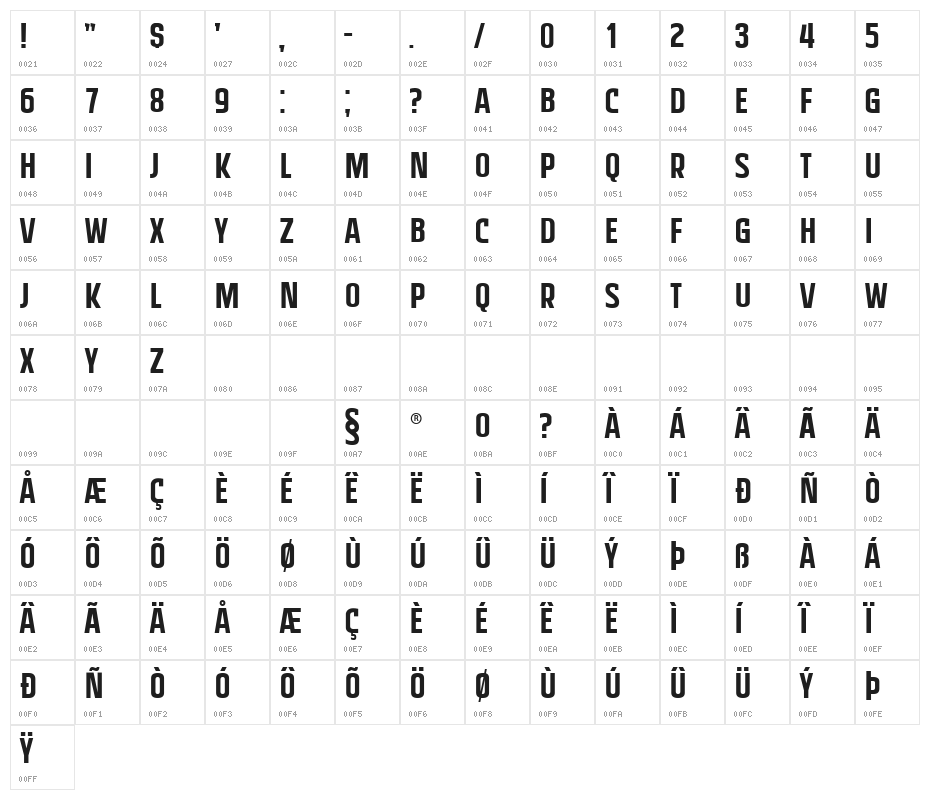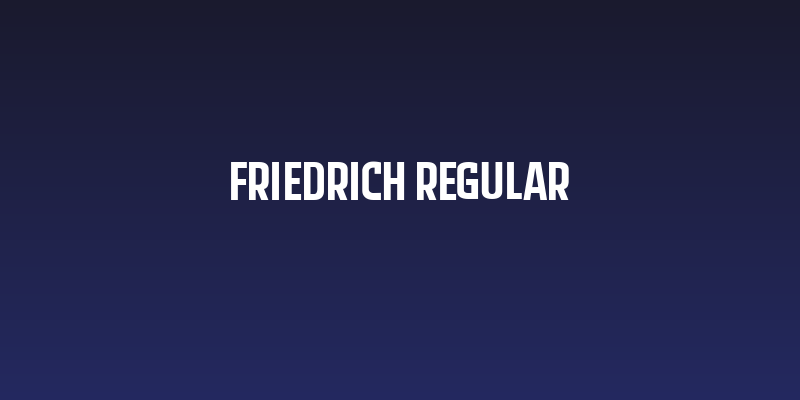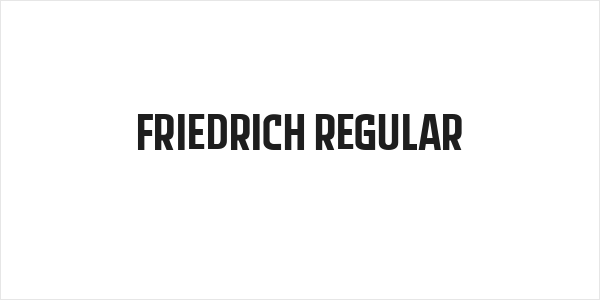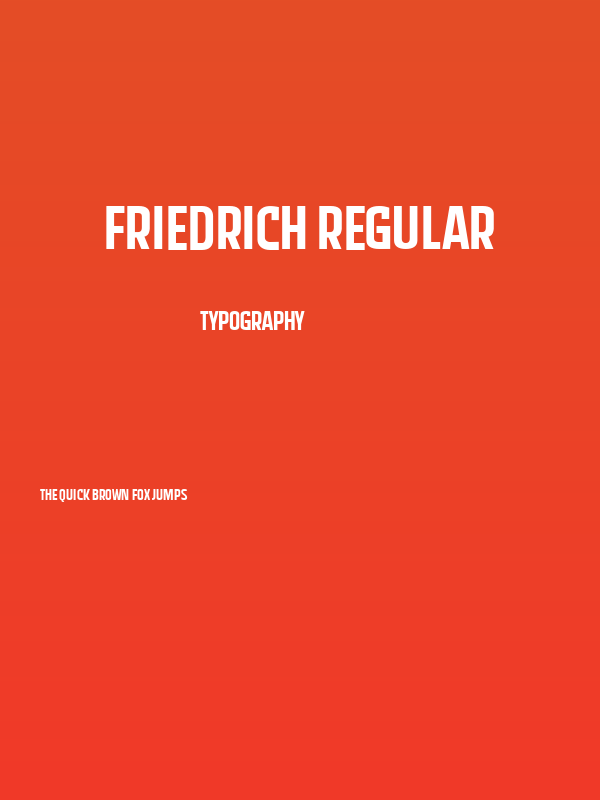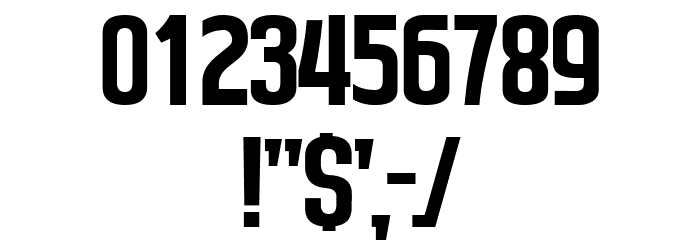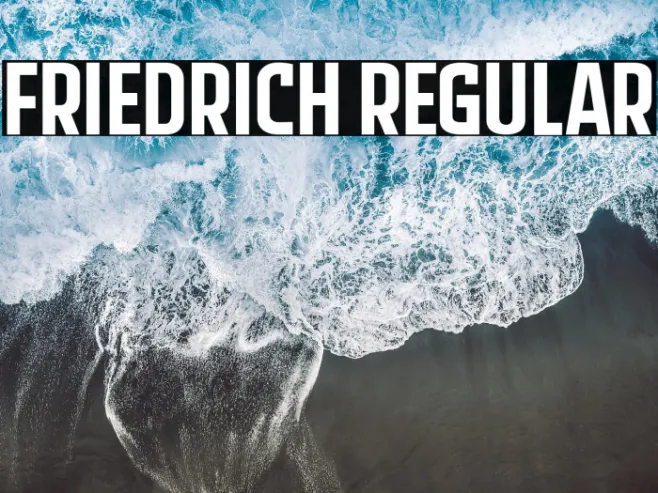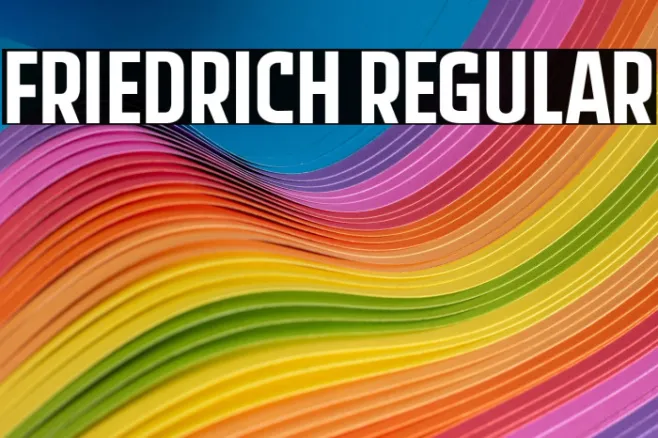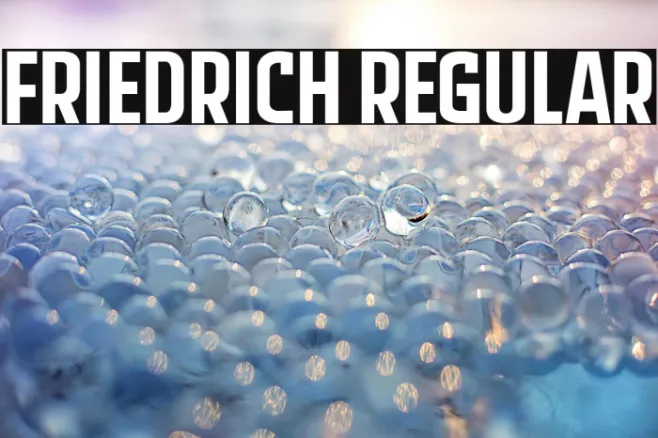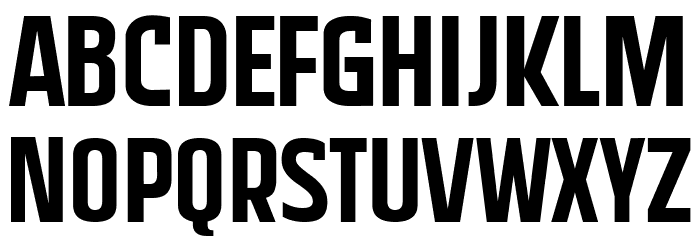
Friedrich Regular Font
Friedrich Regular Description
This typeface features a bold and assertive design, characterized by its strong geometric shapes and clean lines. The uppercase letters are uniform in height, creating a cohesive and structured appearance. The strokes are consistent in width, contributing to a modern and professional look. The numerals are equally bold, ensuring readability and impact. Special characters are designed with the same attention to detail, maintaining the overall aesthetic. This font is ideal for projects that require a strong visual presence and clear communication.
| Use Case | Headlines, Logos, Signage |
| Proposed Projects | Ideal for branding, advertising, headlines, and signage where a strong, modern presence is needed. |